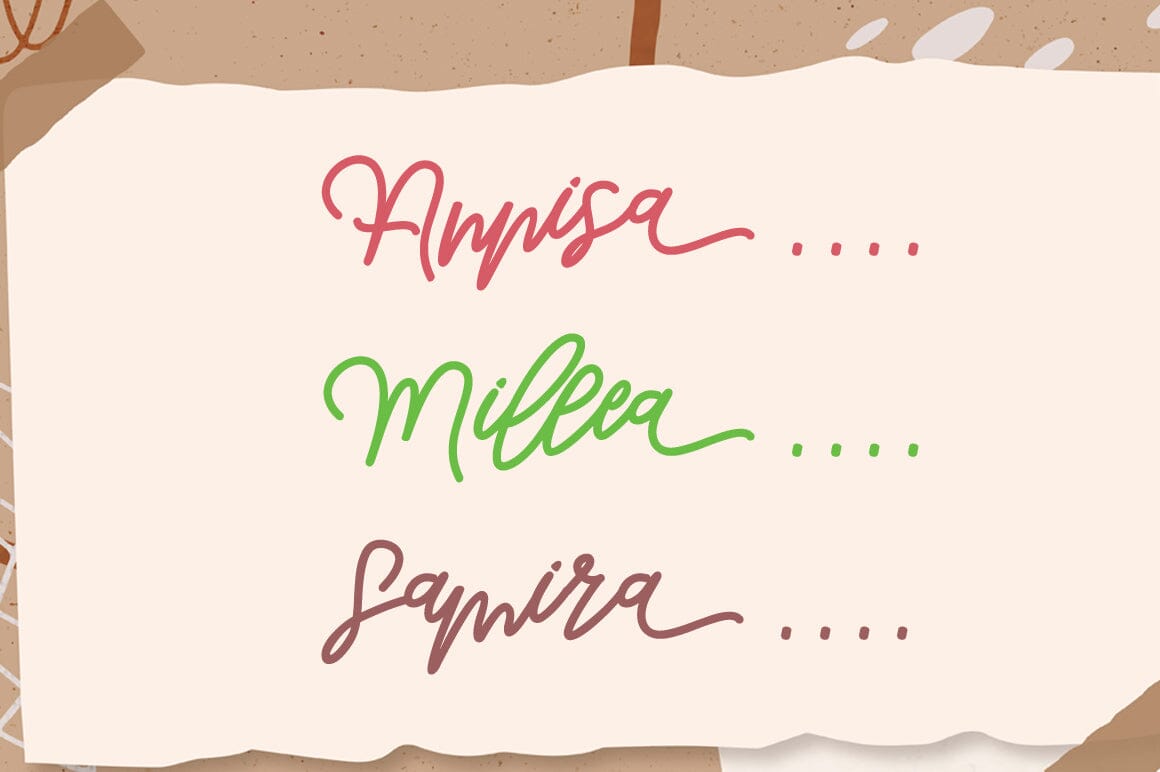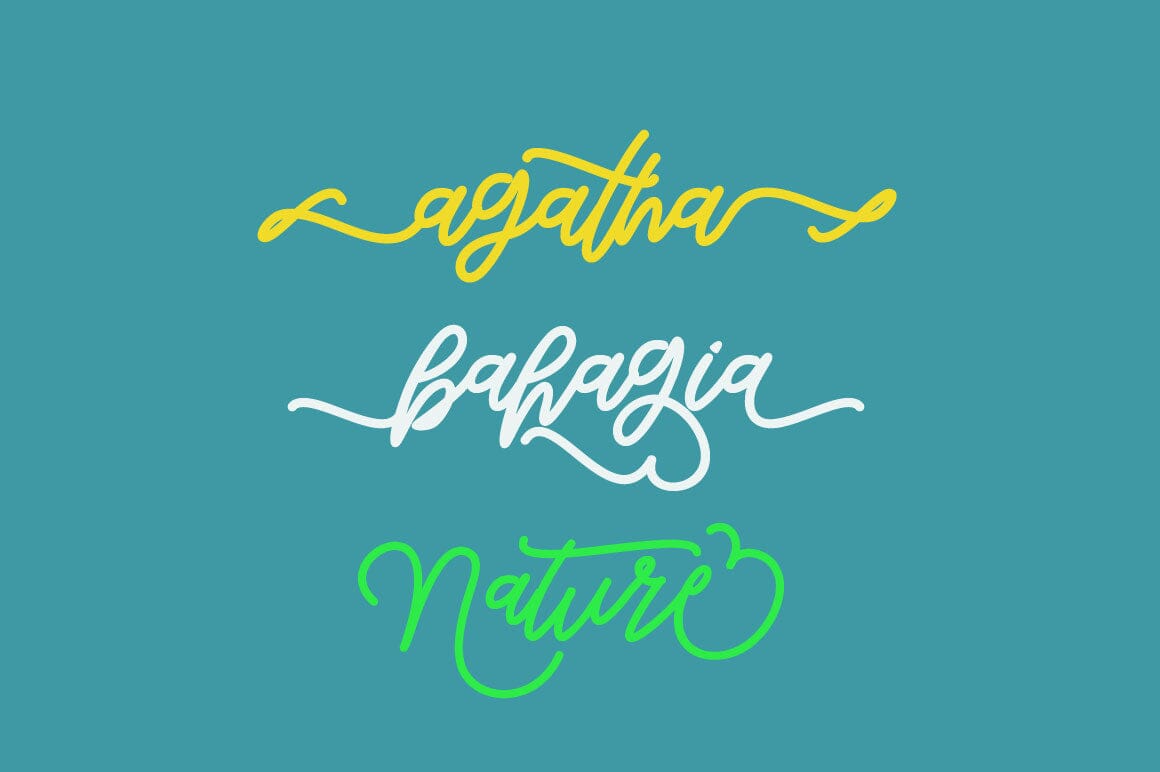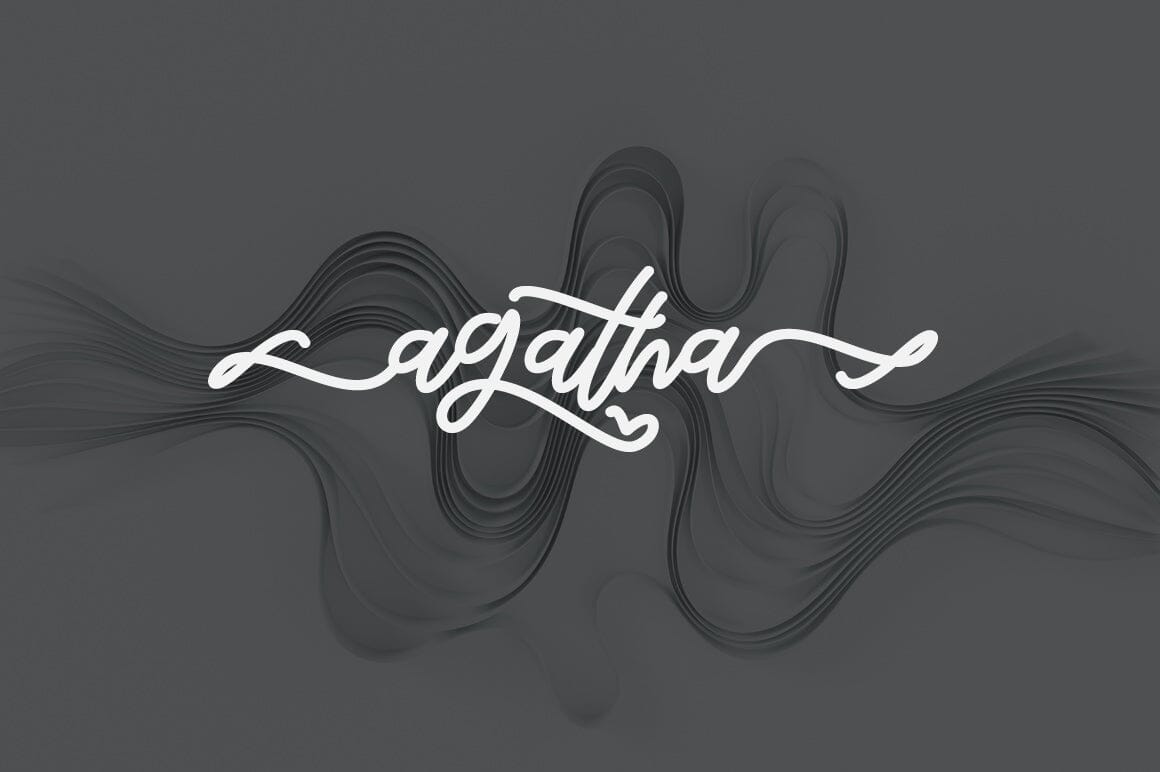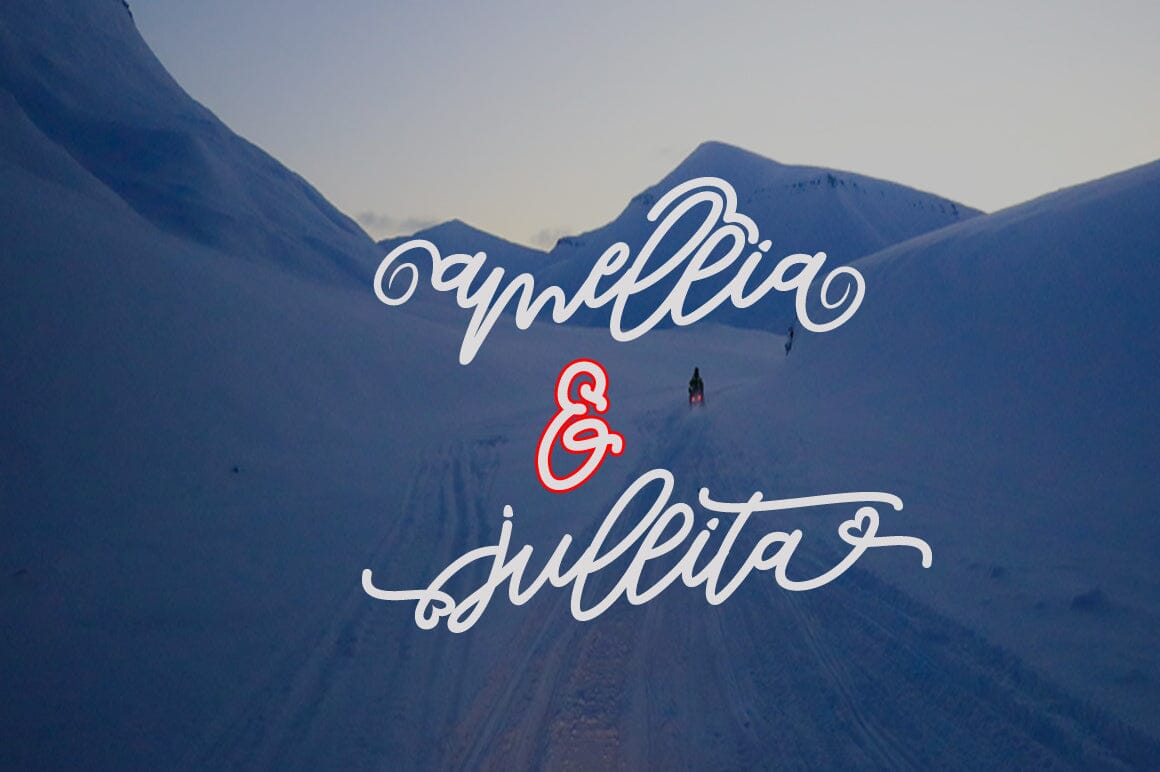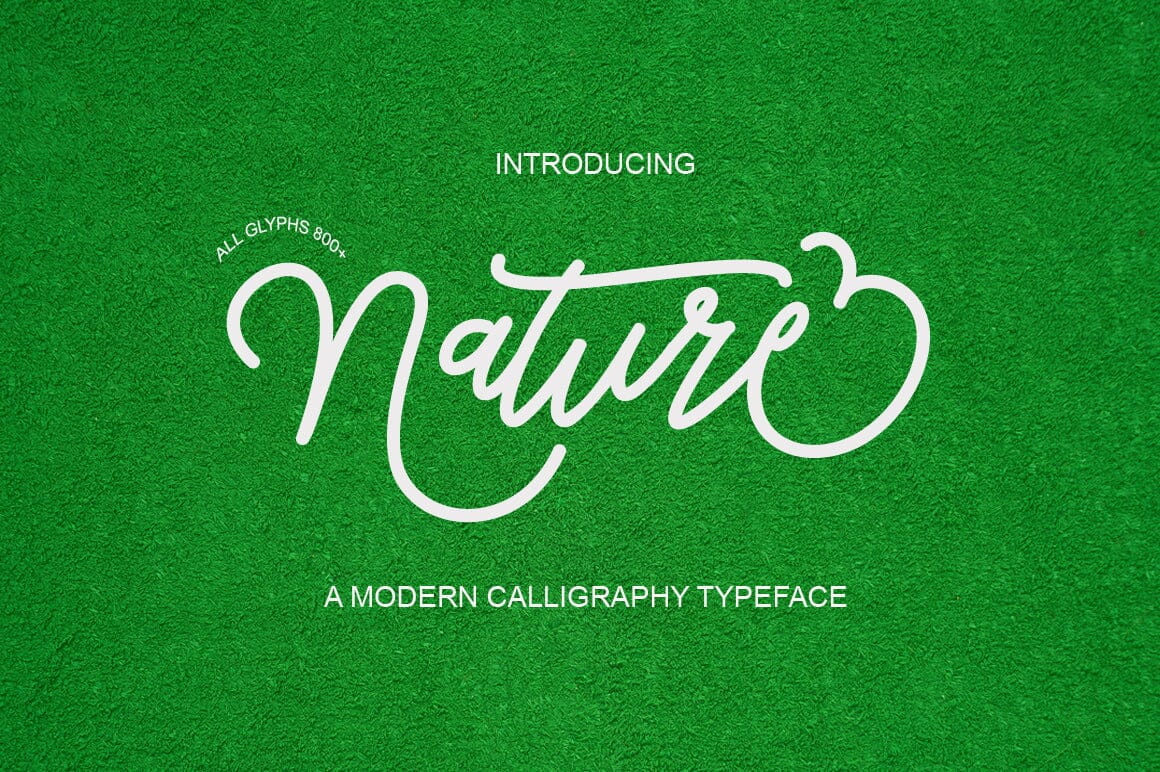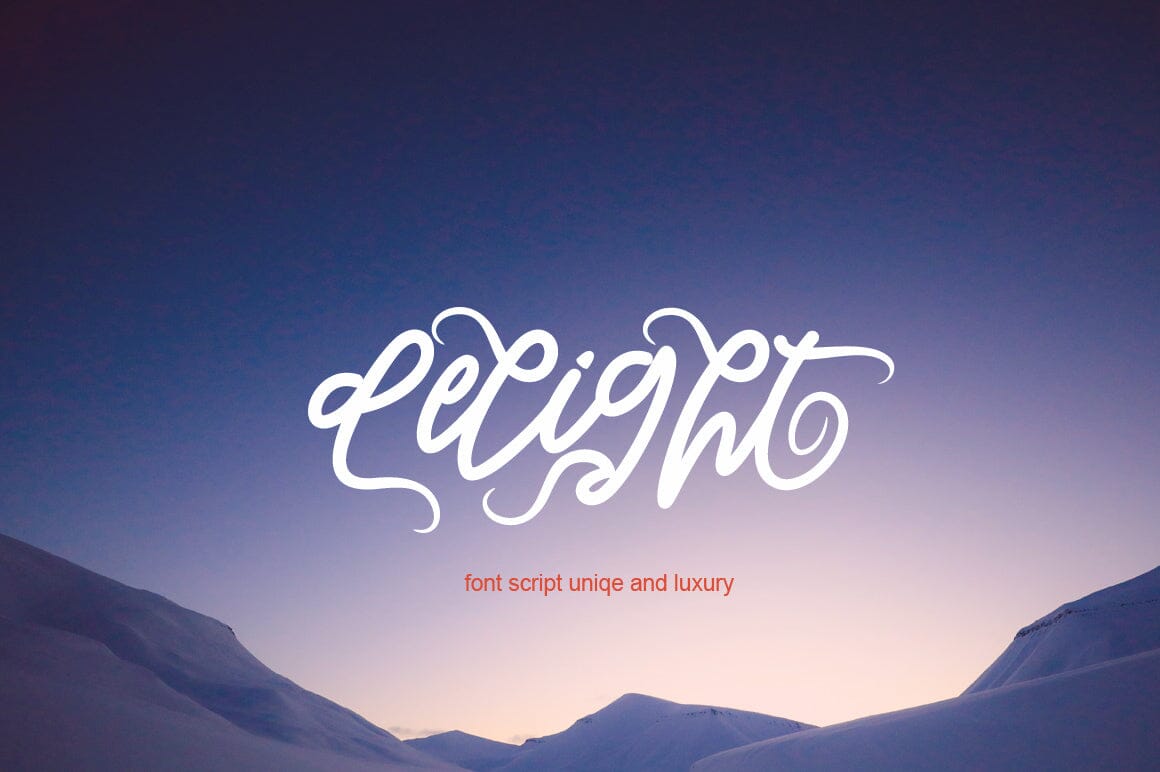
nature Nature is a smooth and elegant handwritten font. This font has a beautiful touch of character, perfect for a variety of designs of all kinds. Nature features varied baselines, unique fine lines, and highly alternative lots of choices and amazing. This Nature font has been checked continuously before being marketed. Thank You have a nice day for all of us!